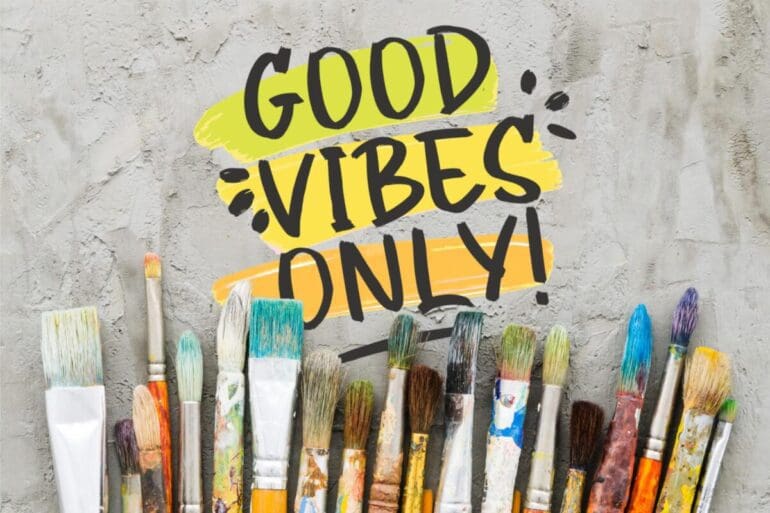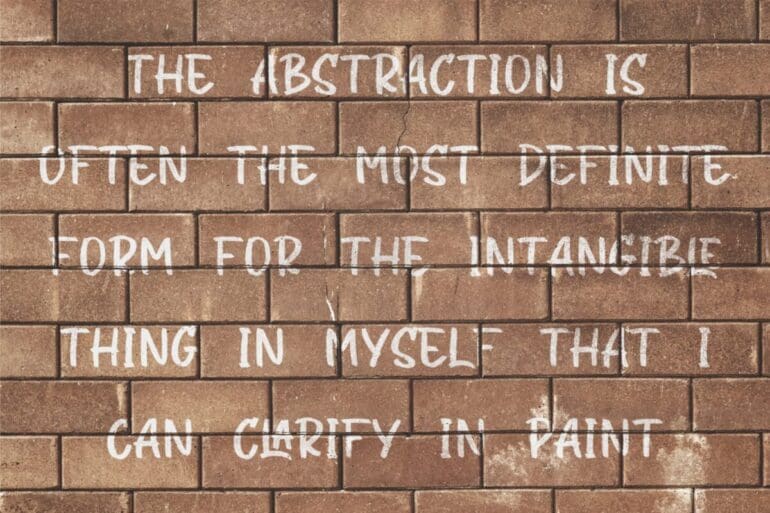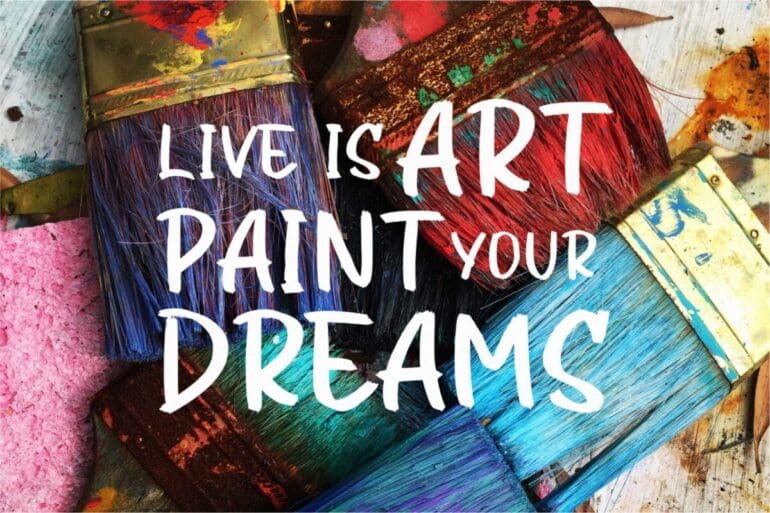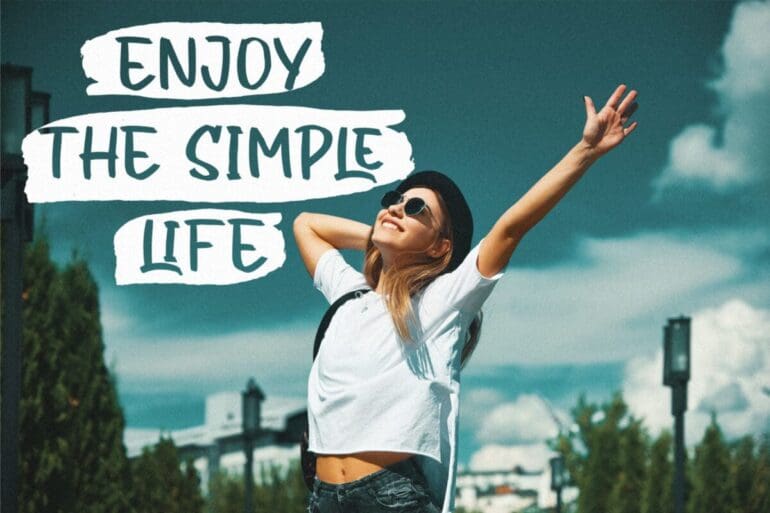
Vivacily Font
Vivacily is a cool and simple looking display font. No matter the topic, this font will be an incredible asset to your fonts’ library, as it has the potential to elevate any creation.